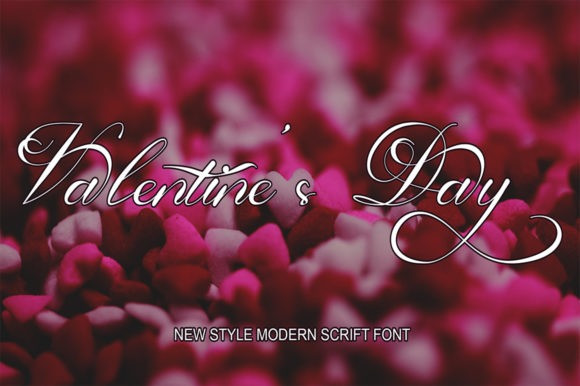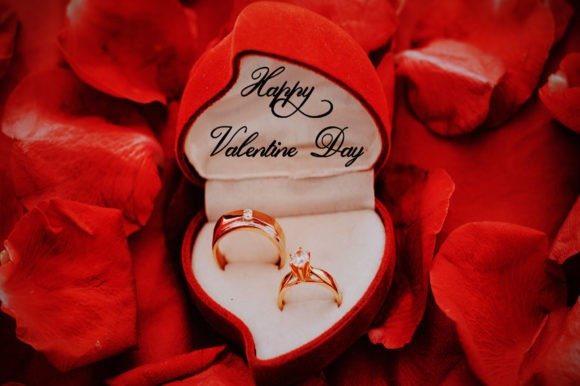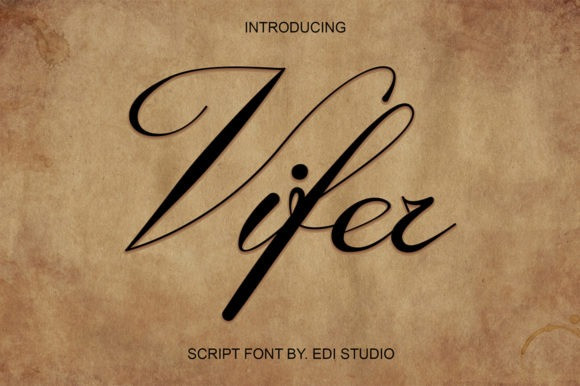
Vifer Font
Vifer Font is a fashionable script font. Dainty and stylish, this font will be ideal for writing wedding invitations, cards or any other design that may need a romantic, personalized touch!